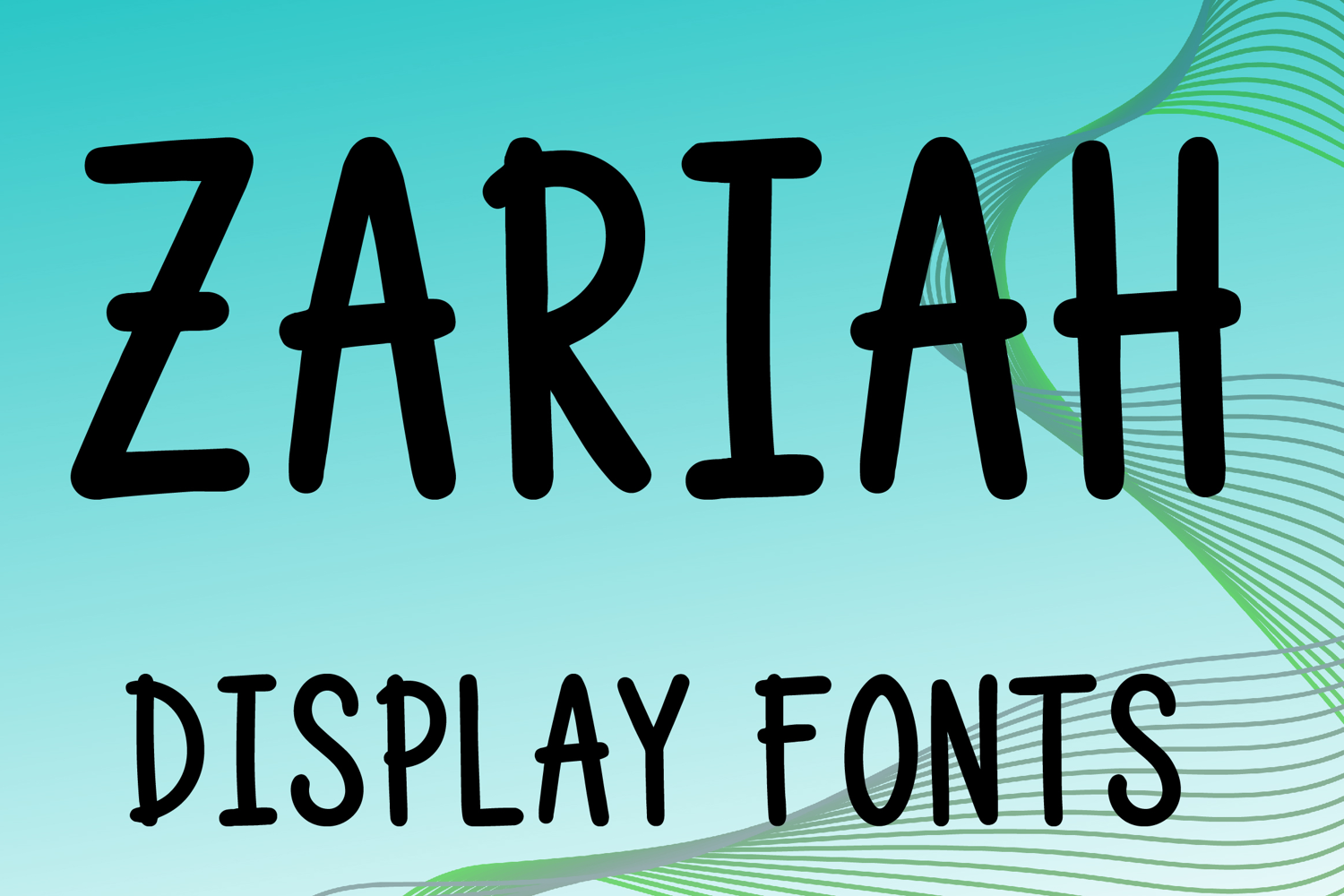
ZARIAH
ZARIAH is a playful display font with a fun hand-drawn style and soft rounded character. Its bold uppercase letterforms, smooth curves, and charming irregular details create a friendly, lively look that feels both eye-catching and memorable. Designed with uppercase letters A–Z and numbers 0–9, ZARIAH is perfect for logos, branding, posters, packaging, kids’ projects, and social media graphics that need a cheerful and creative typeface.